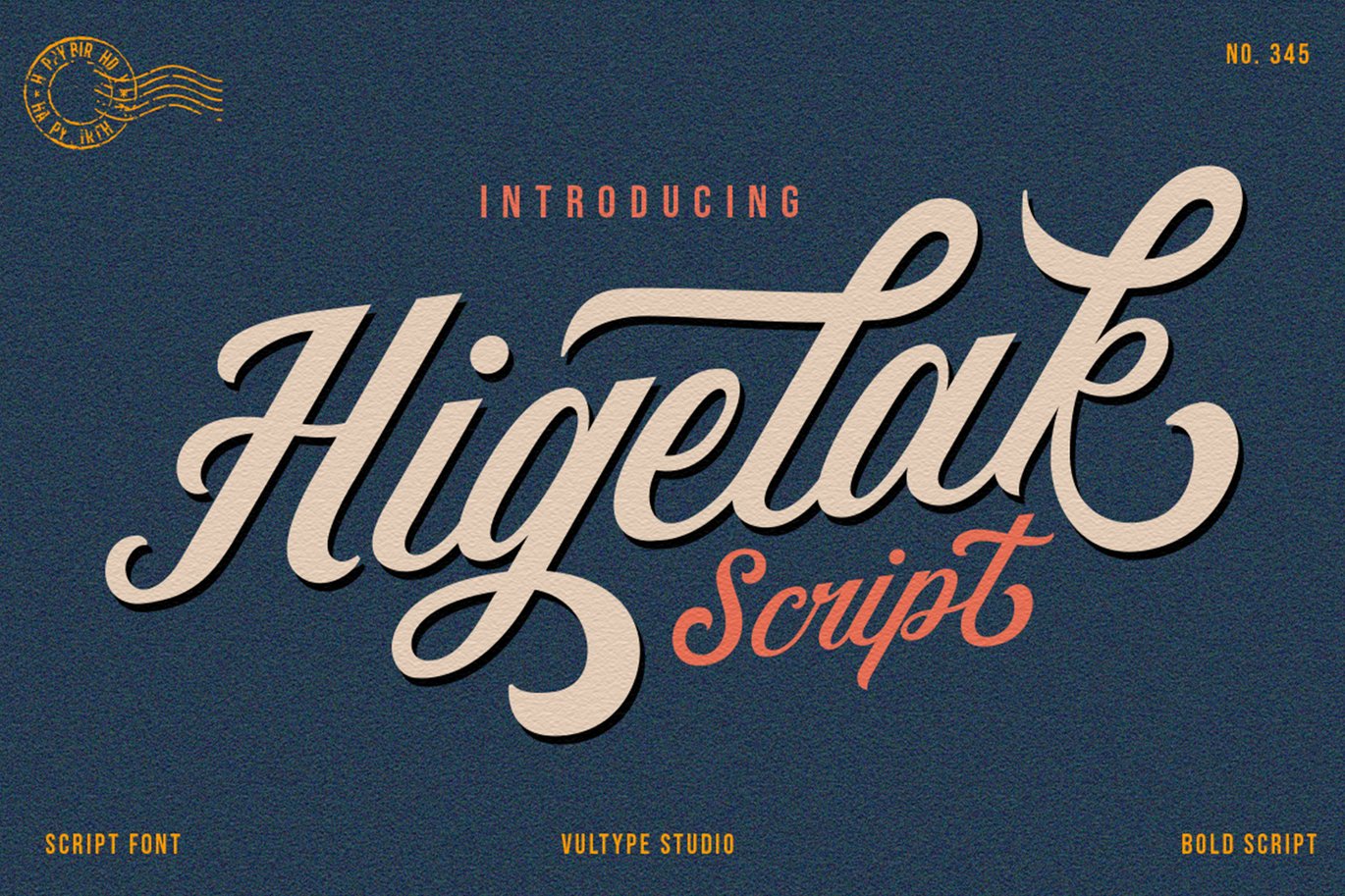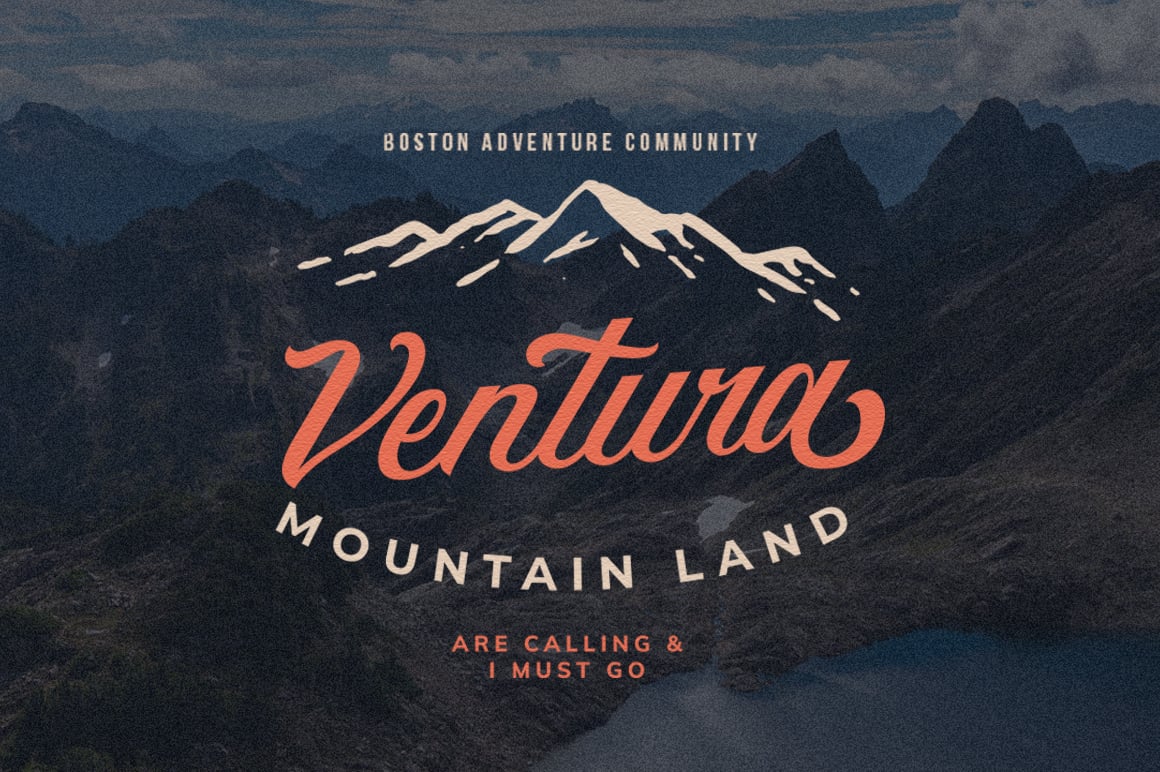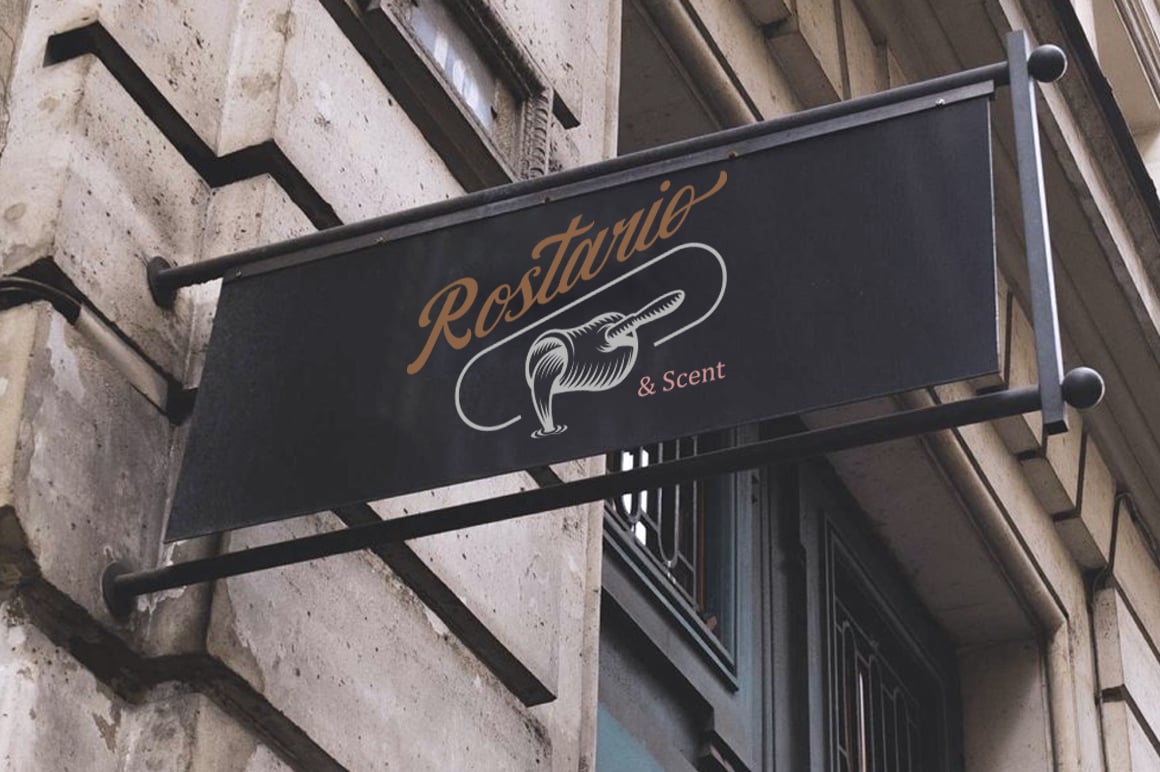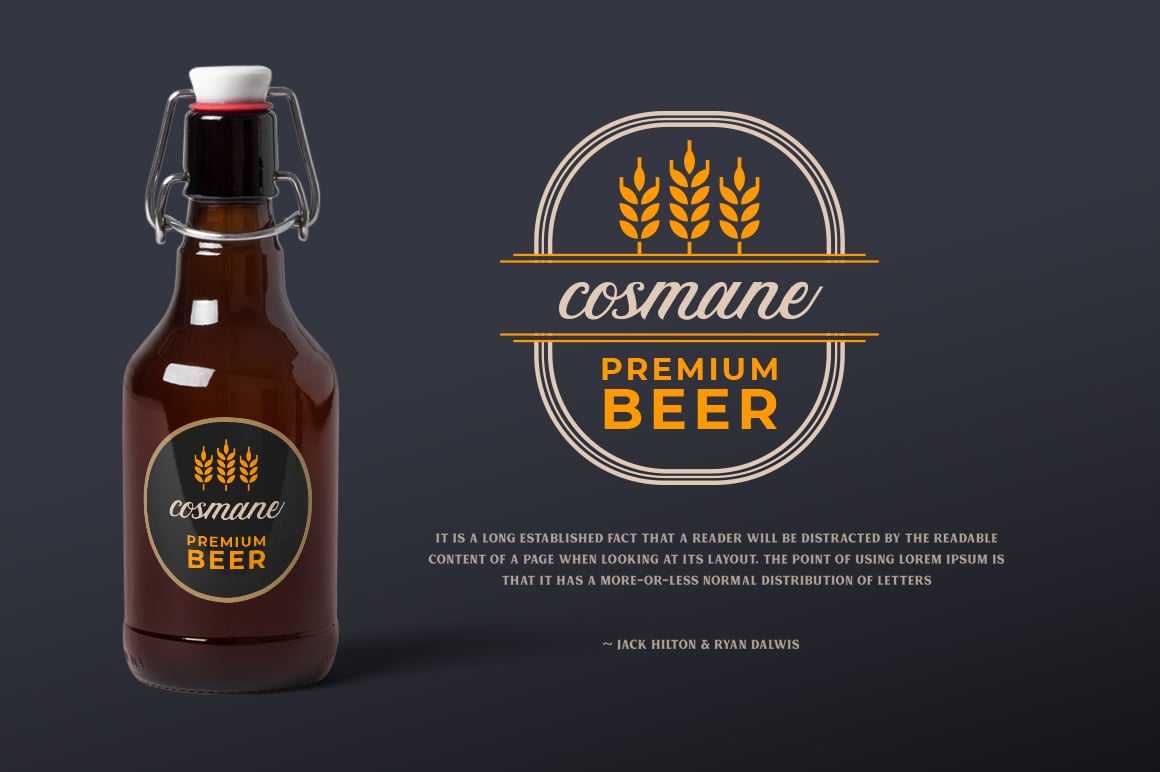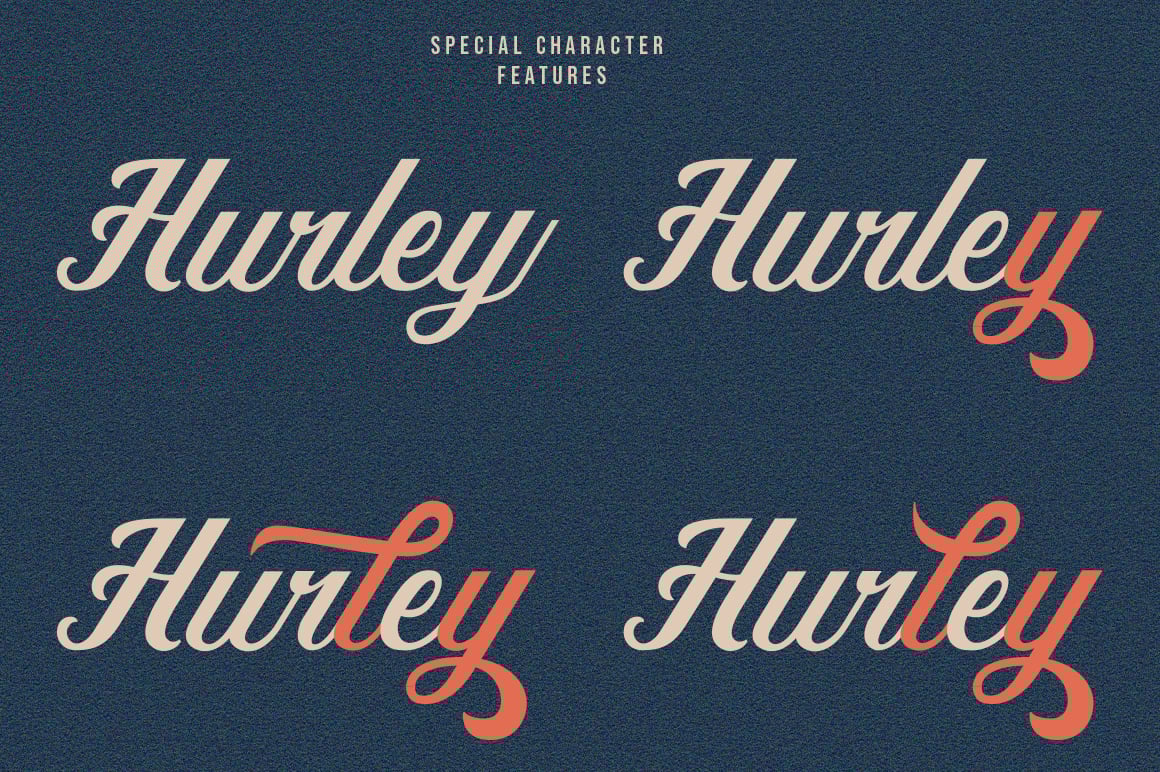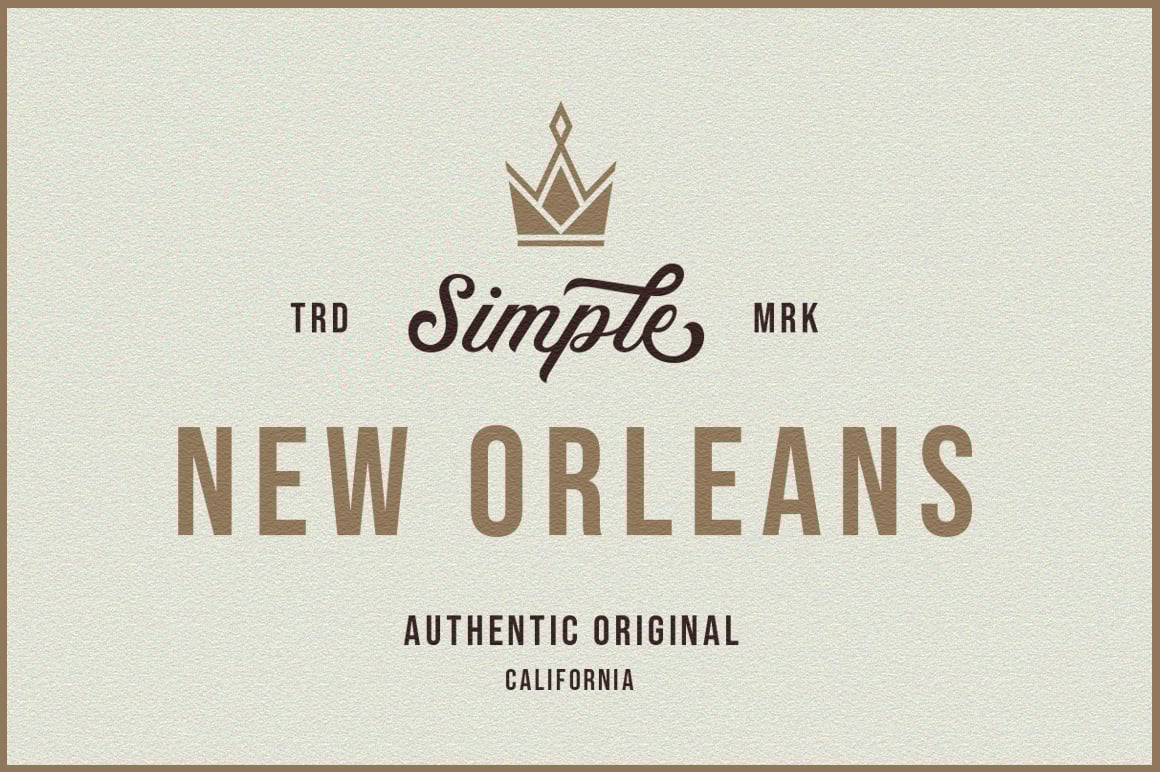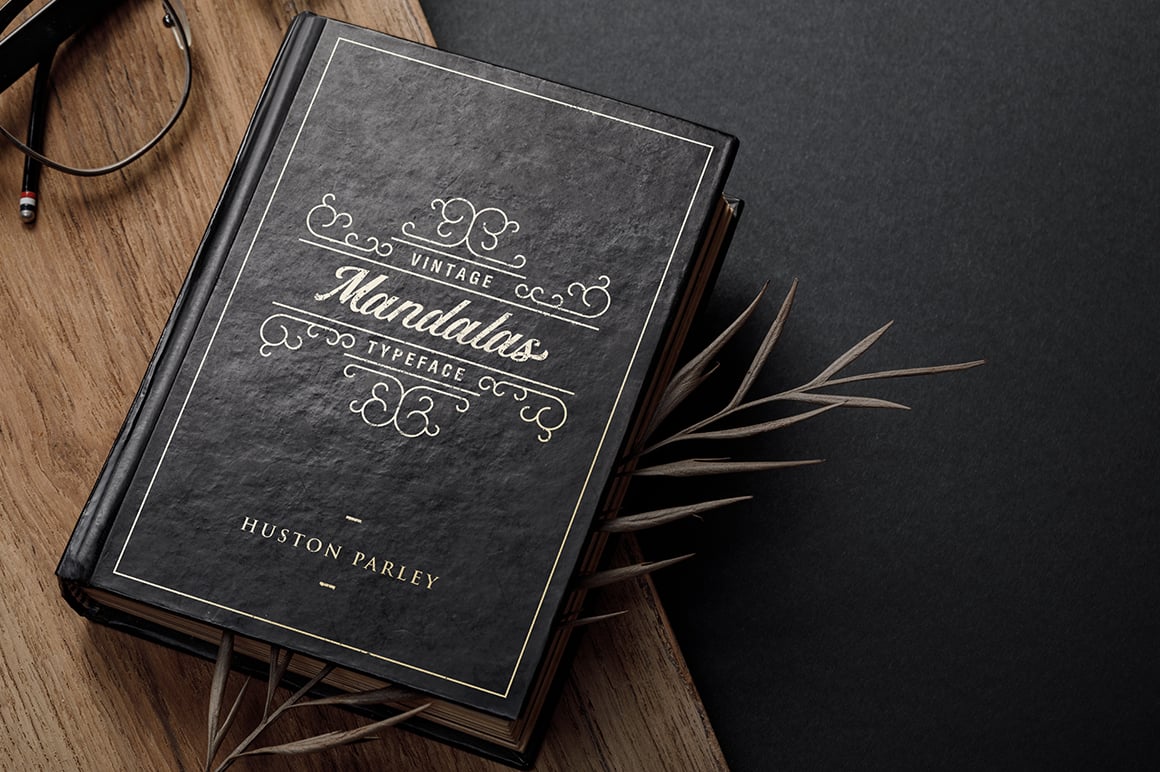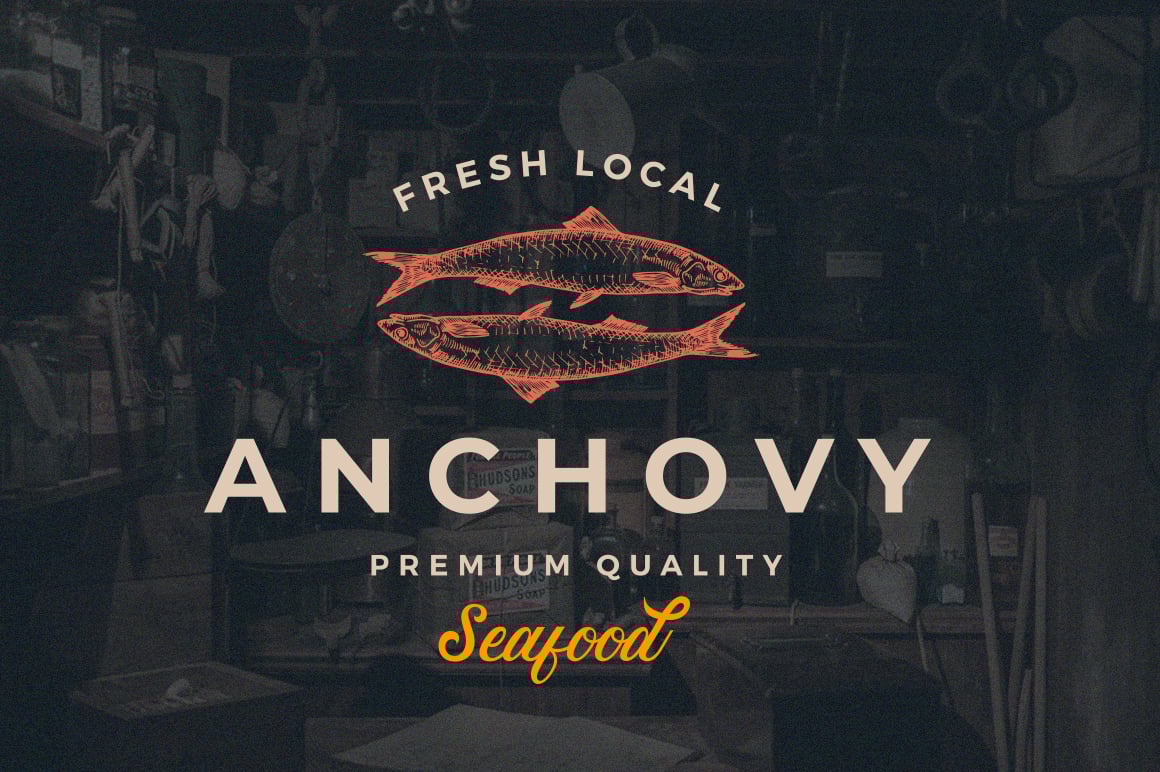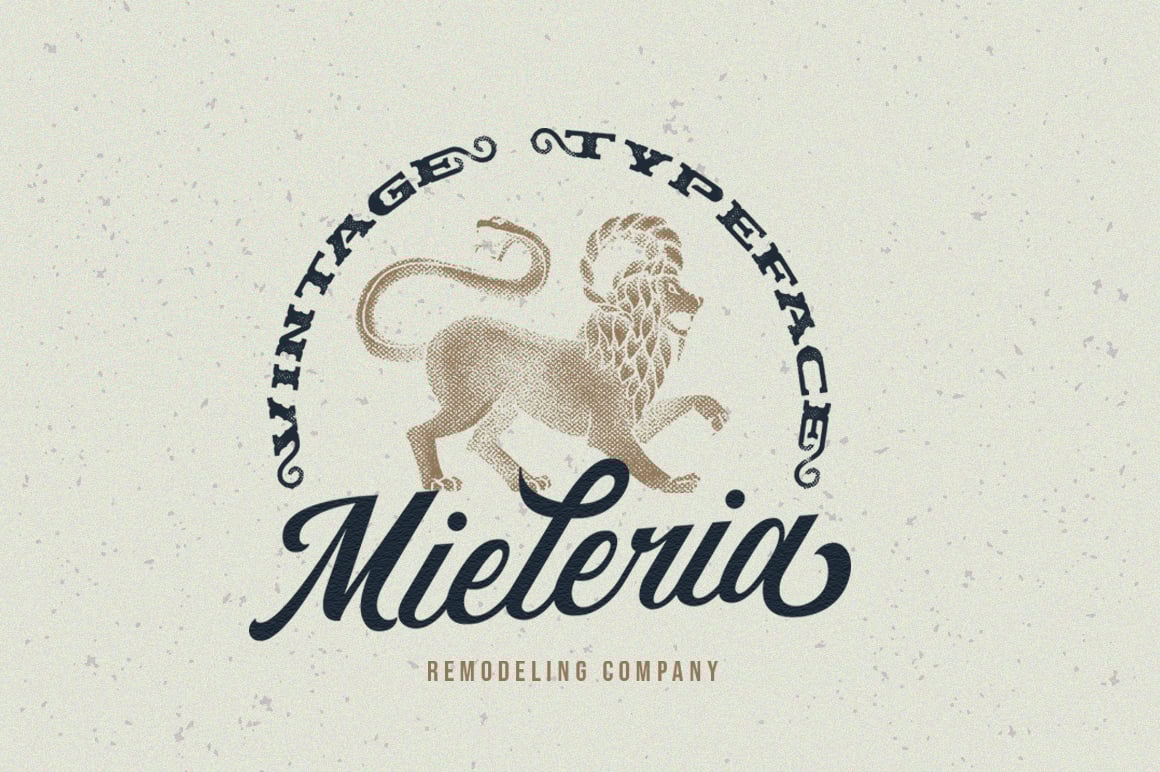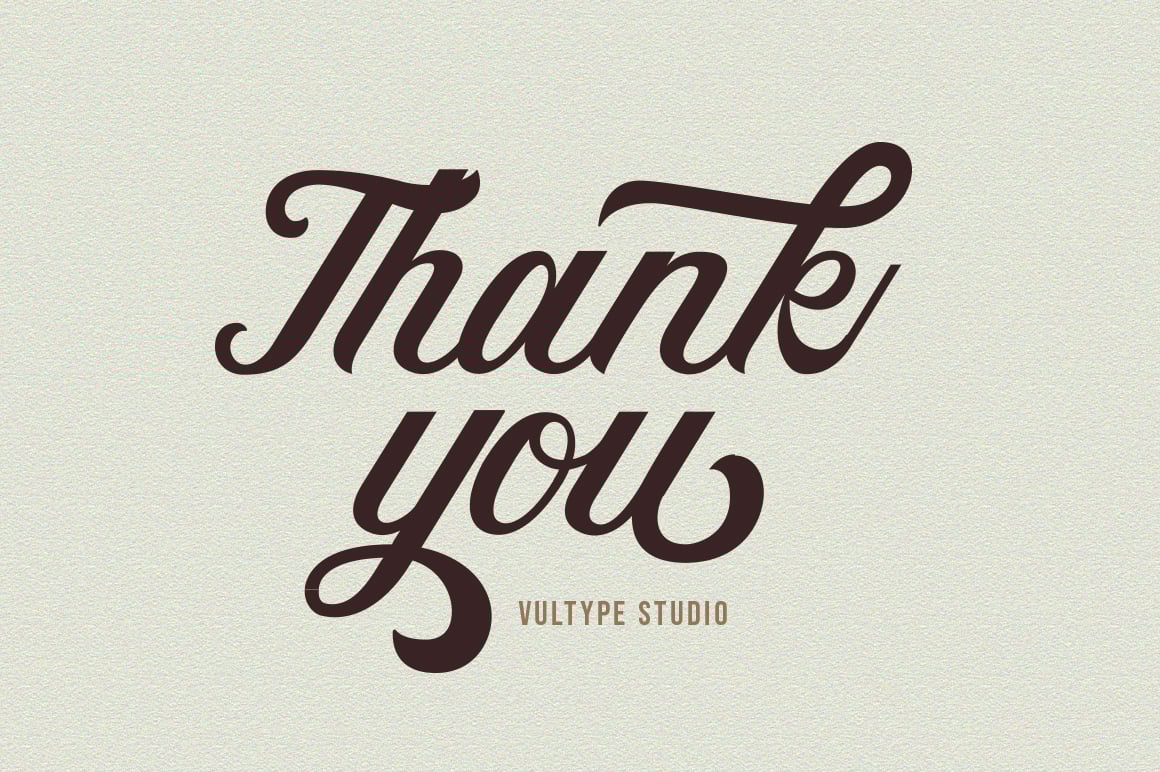
Higelak Retro Font
Higelak Vintage Retro Script Inspired by Modern Vintage & Retro style and combination with old american traditional style.
Higelak Script allowing you to create hand lettering is an instant and a super handy set of bonus Swash. Ideal for logos, handwritten quotes, product packaging, header, poster, merchandise, social media & greeting cards.